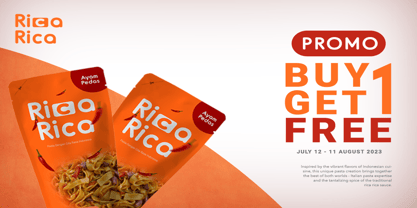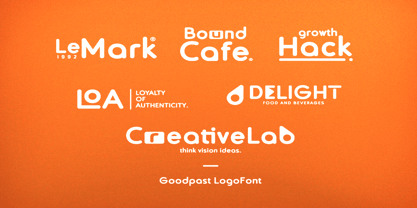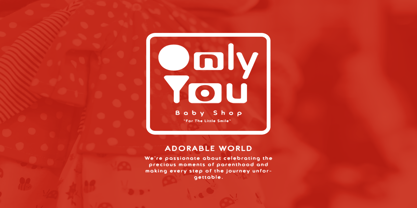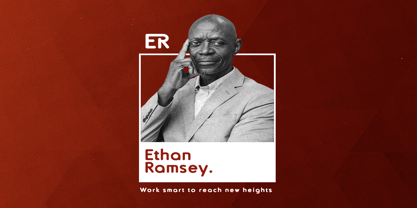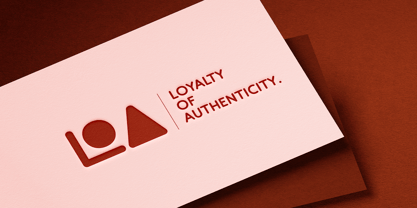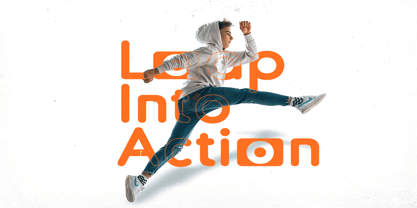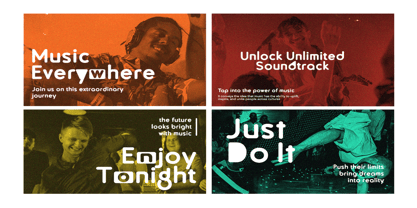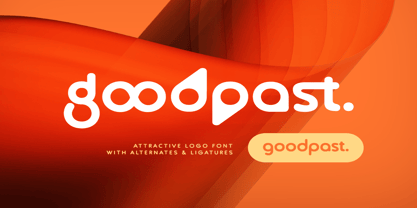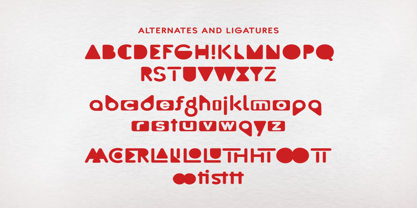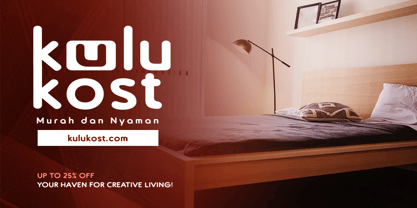
Goodpast
by Bale Type
The Goodpast Font Family was designed by Sarid Ezra, Dzikrul Aulia and published by Bale Type. Goodpast contains 2 styles and family package options.
Goodpast is a minimalist yet futuristic logo font based on rounded sans serif. With unique and twisted alternates, you can make your logo looks more attractive and modern. This font also including creative ligature that will make your project looks more stunning. You can use this font for branding, logo, poster, and designs that require sci-fi looks. This font also support multilingual.